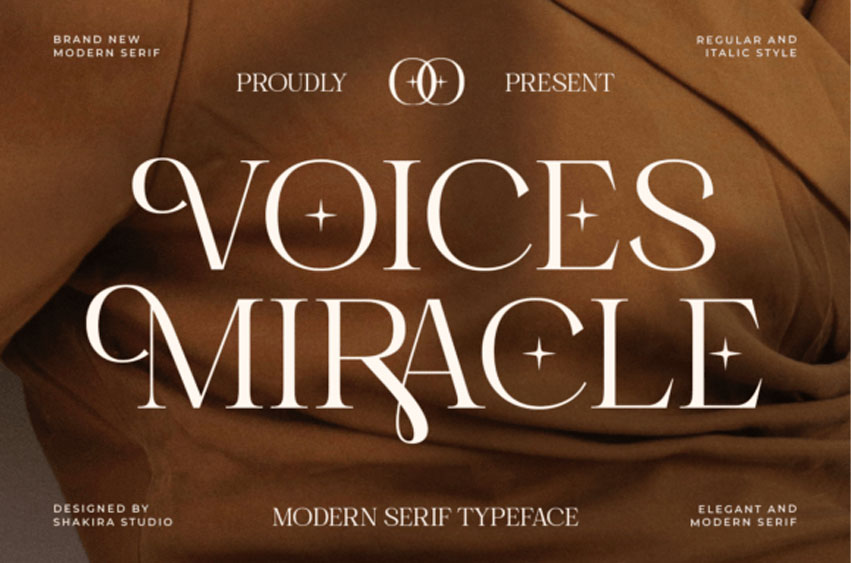
Voices Miracle Font is an elegant and high-contrast modern serif typeface that seamlessly blends timeless sophistication with a contemporary edge.
Designed to make a bold yet graceful statement, this font features sharp serifs, stylish ligatures, and luxurious curves that give it an editorial feel, perfect for both digital and print media.
With its refined proportions and unique flair—like the dramatic swashes and starburst-inspired glyph details—Voices Miracle is ideal for fashion branding, magazine headlines, upscale logos, wedding designs, and premium packaging. The typeface includes both Regular and Italic styles, offering even more flexibility to create visually stunning typography with a touch of drama.
Whether you’re crafting a luxury brand identity, a chic social media post, or an inspiring quote layout, Voices Miracle elevates your design with a voice that’s confident, modern, and beautifully poetic.
Use Cases:
Luxury branding, editorial layouts, packaging, fashion titles, and digital identity.